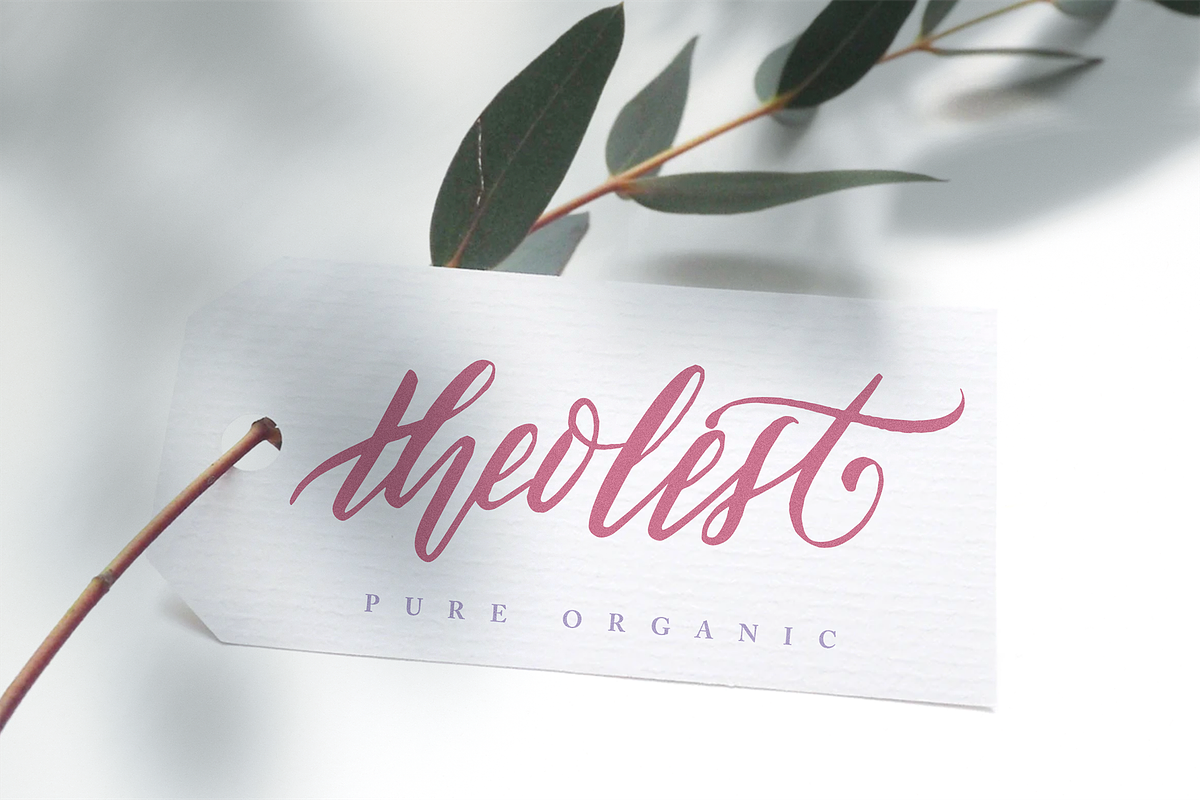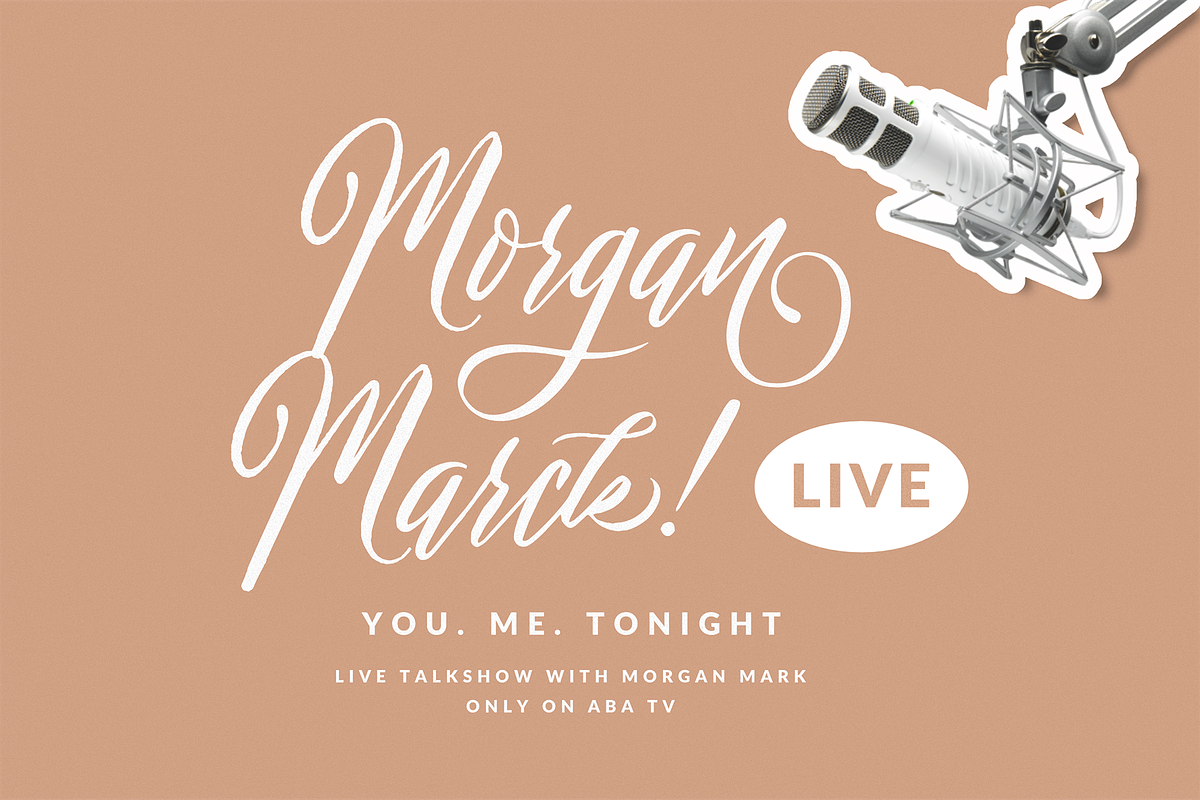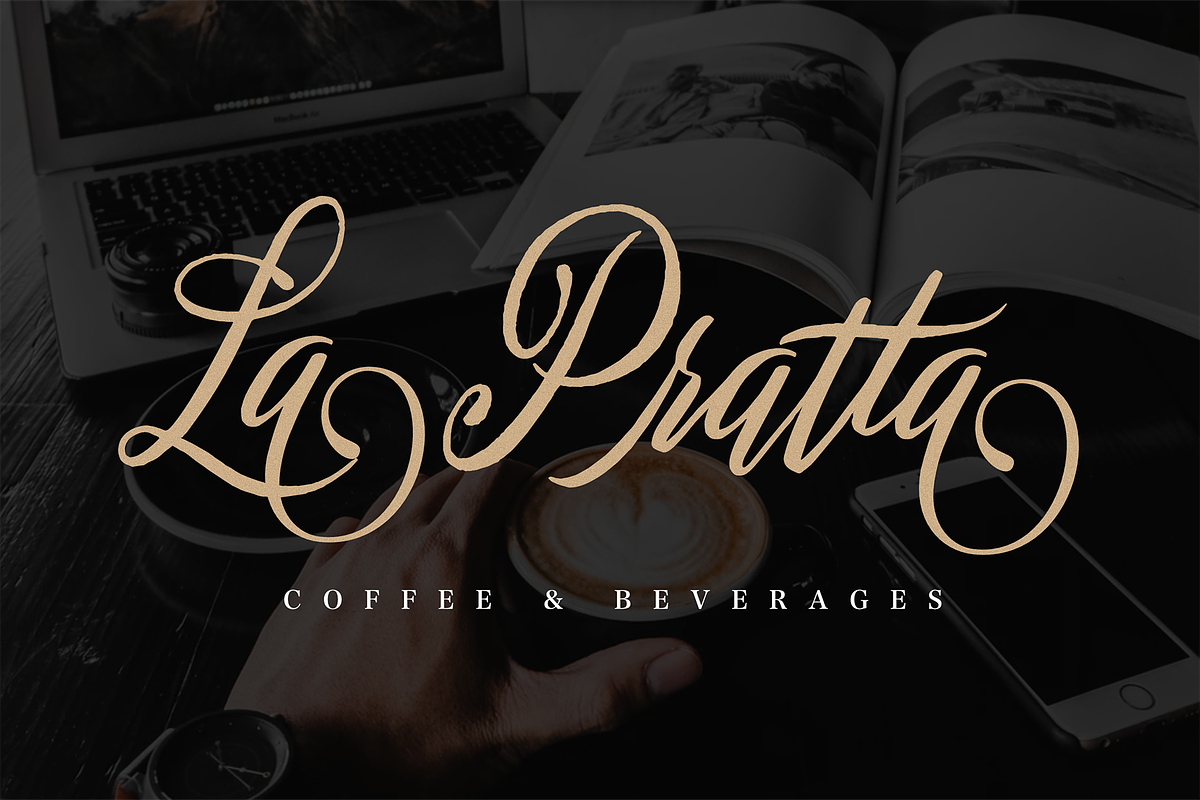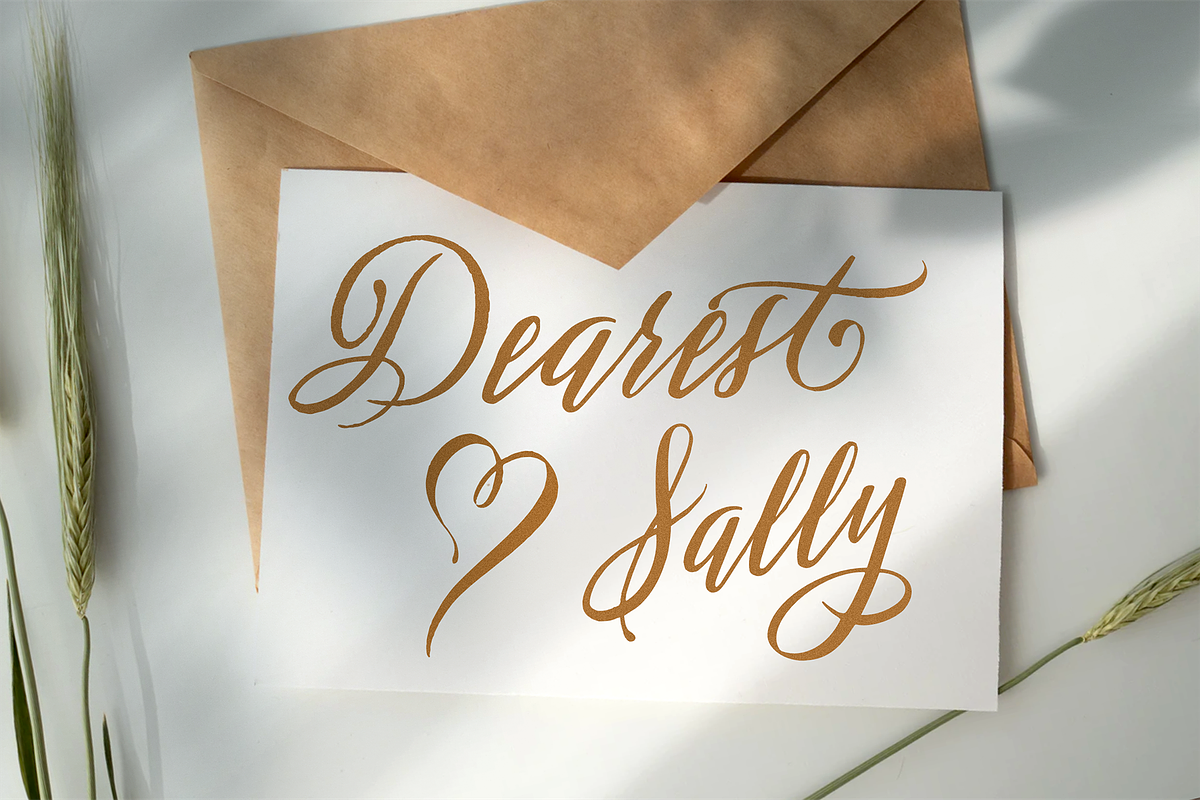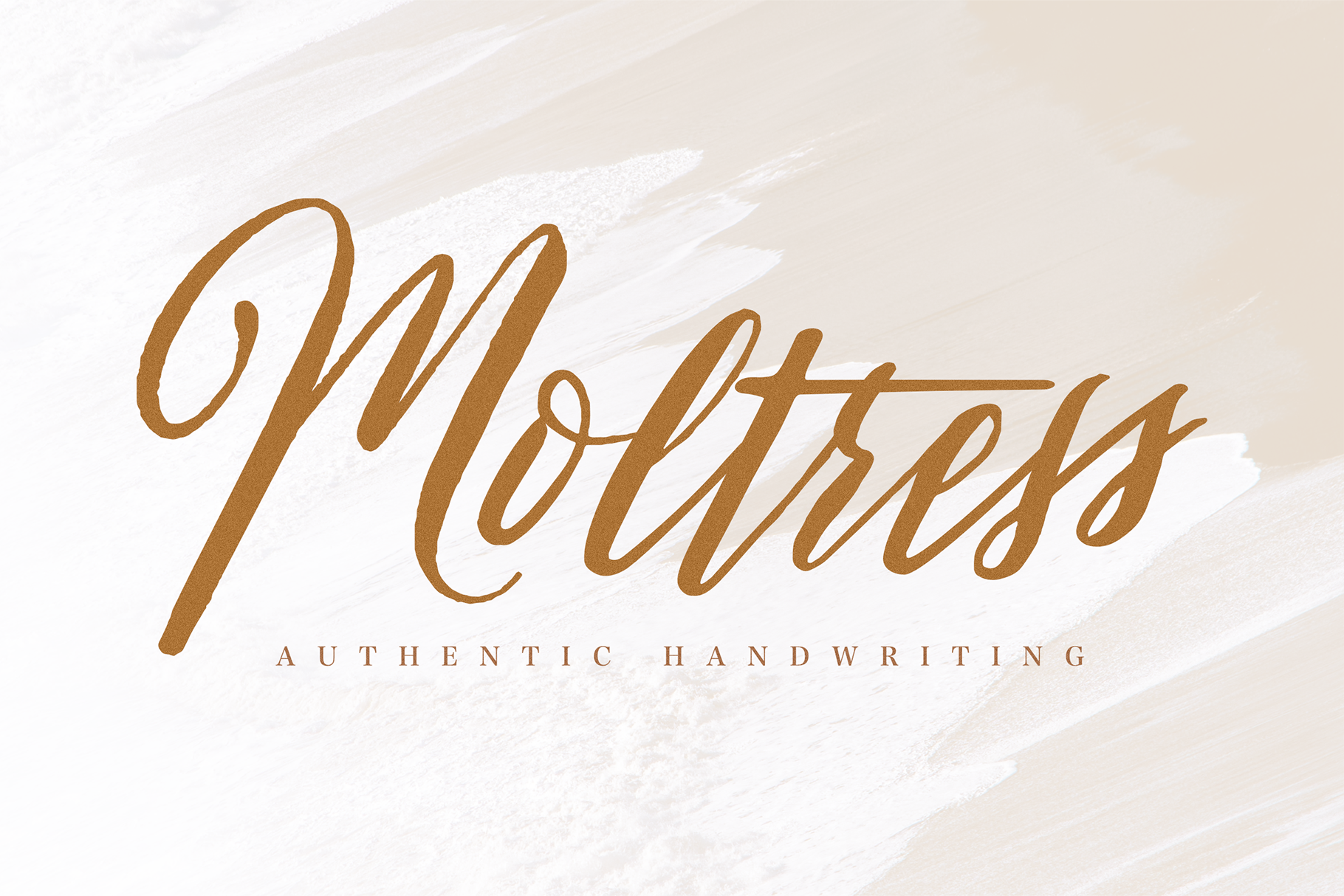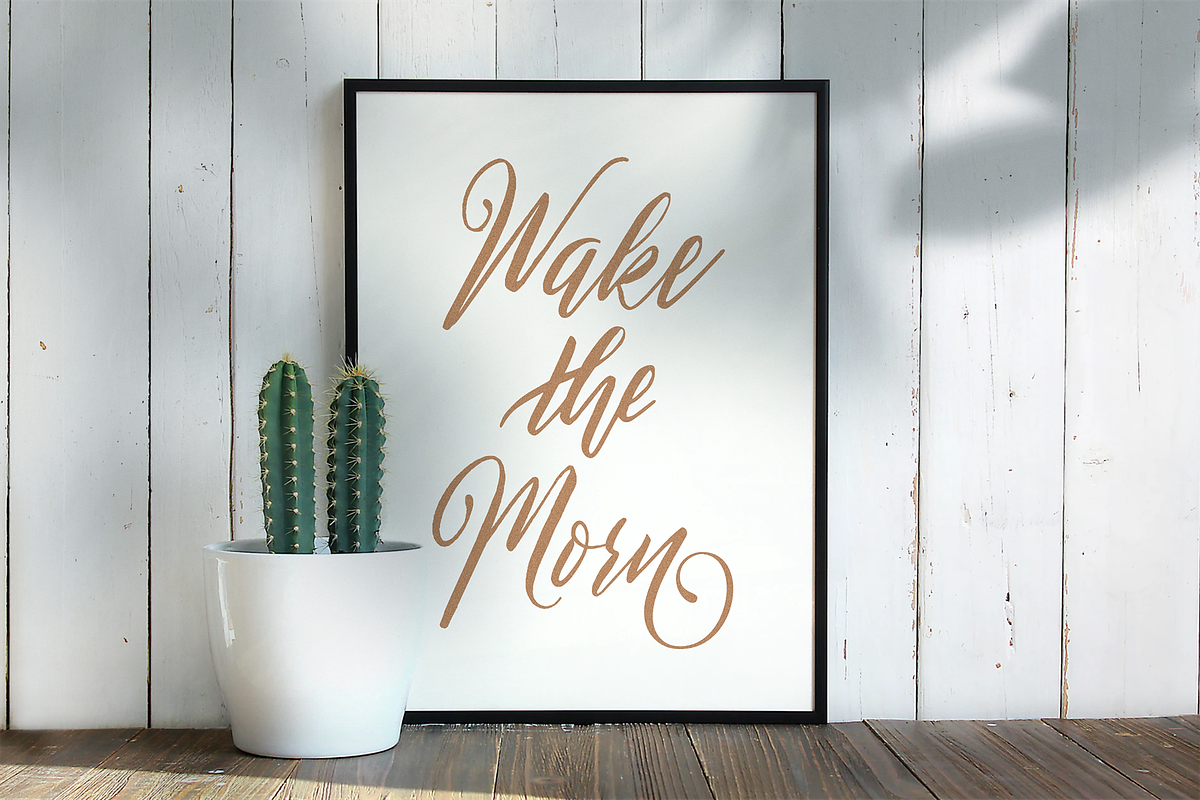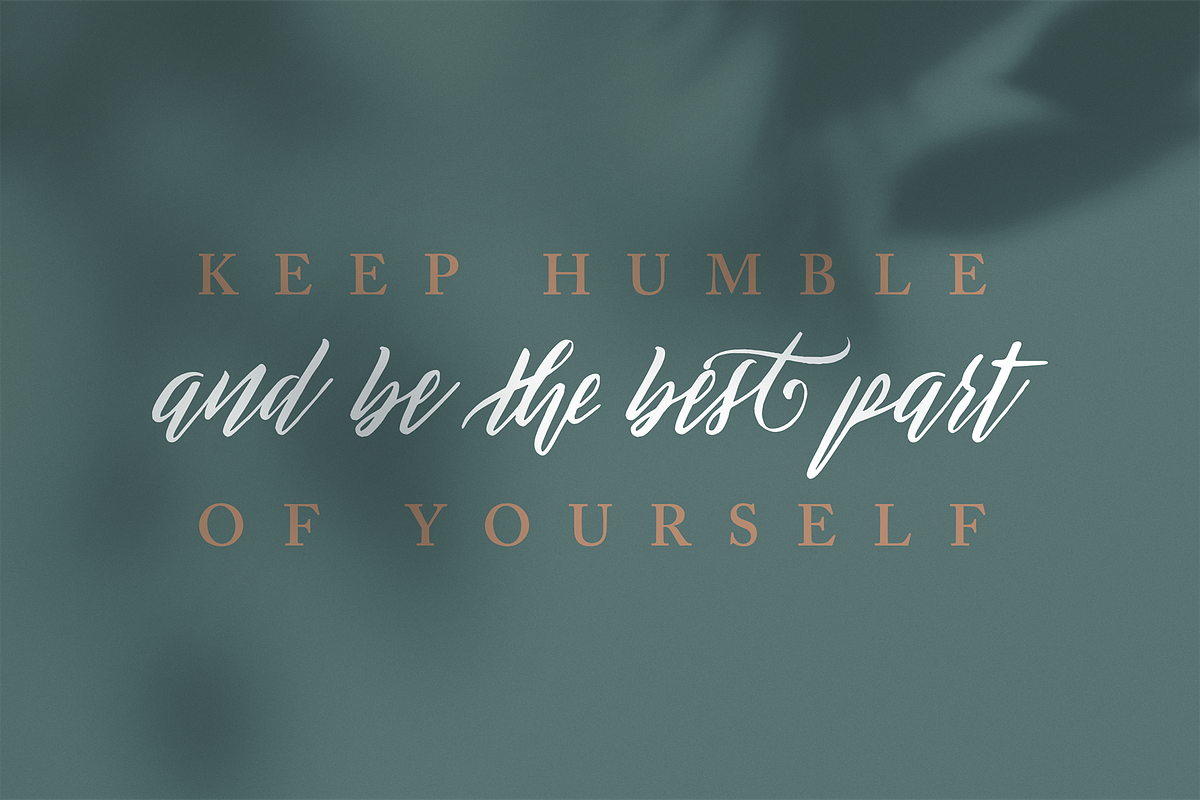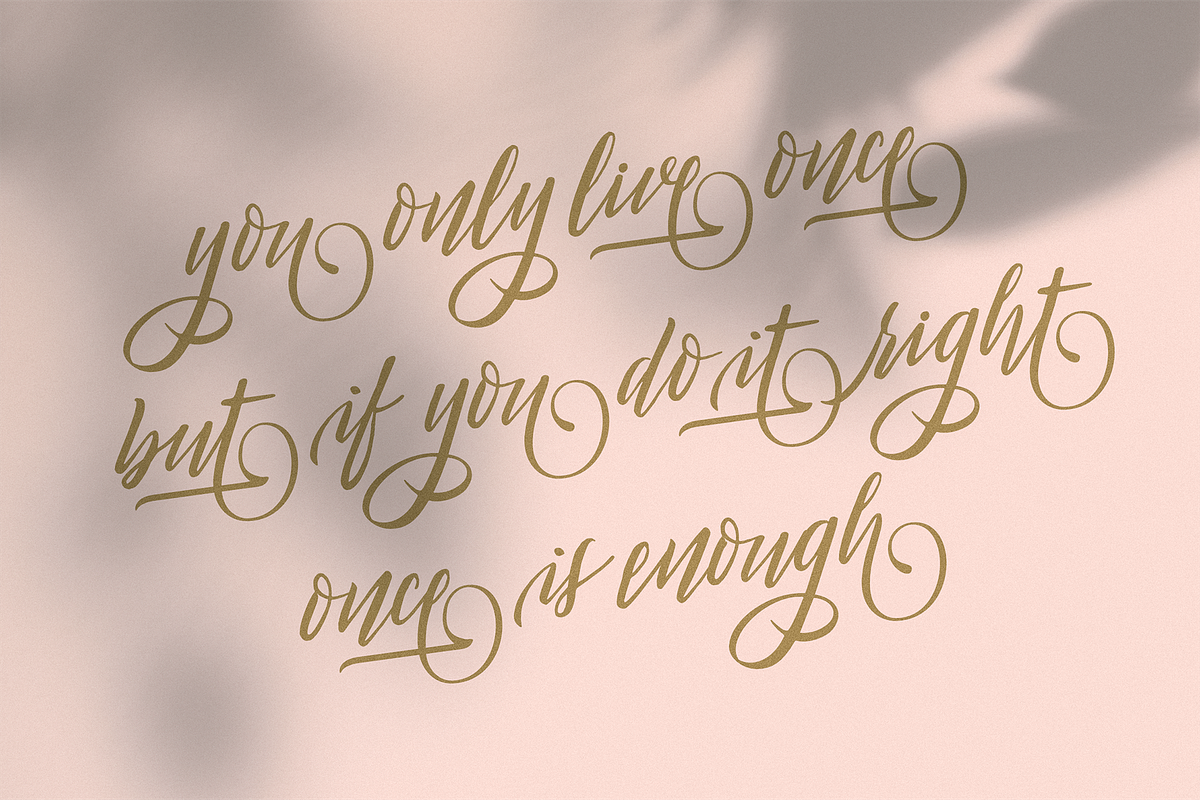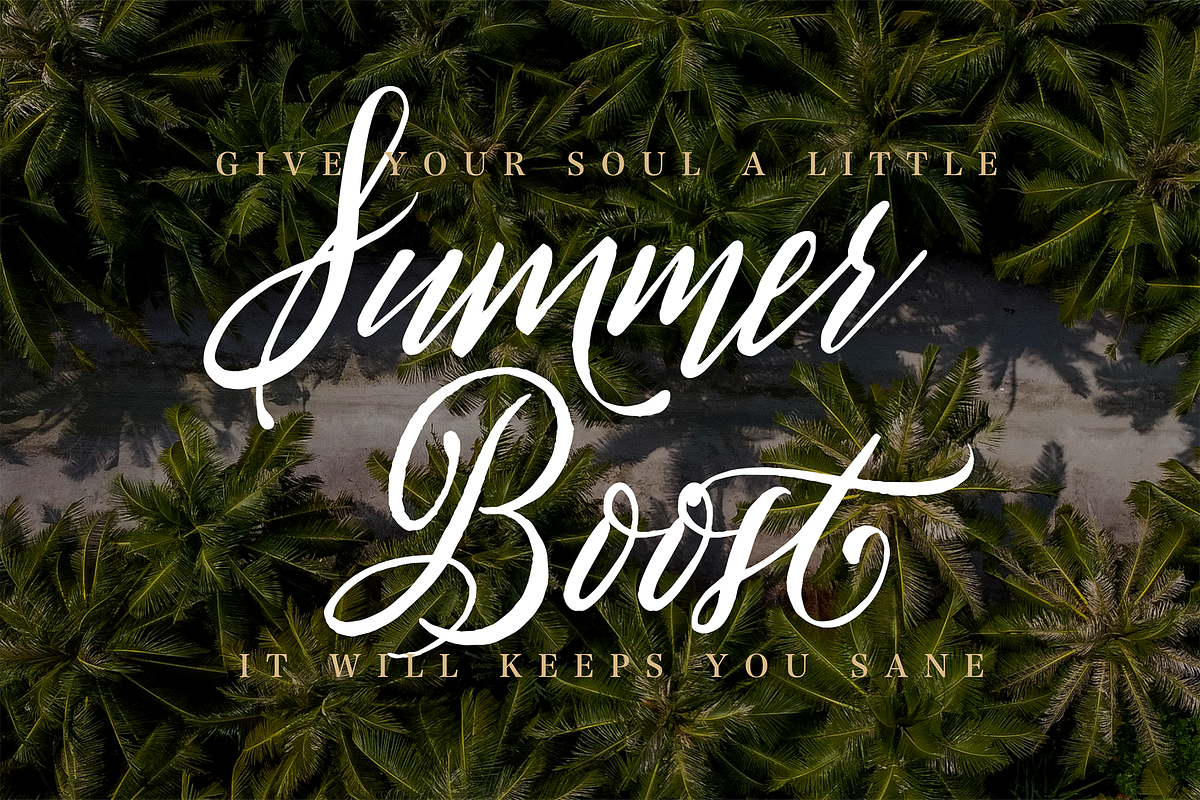
Moltress - Handwritten font
Explore a stunning new rustic, dapper handwritten font, Moltress Script. A carefully crafted typeface with quick-dry strokes, a signature style, and realistic script typeface. Moltress is perfect for personal branding projects, homeware designs, packaging - or simply as a stylish text overlay to any background image, allowing you to jump right in and create stunning designs within minutes.